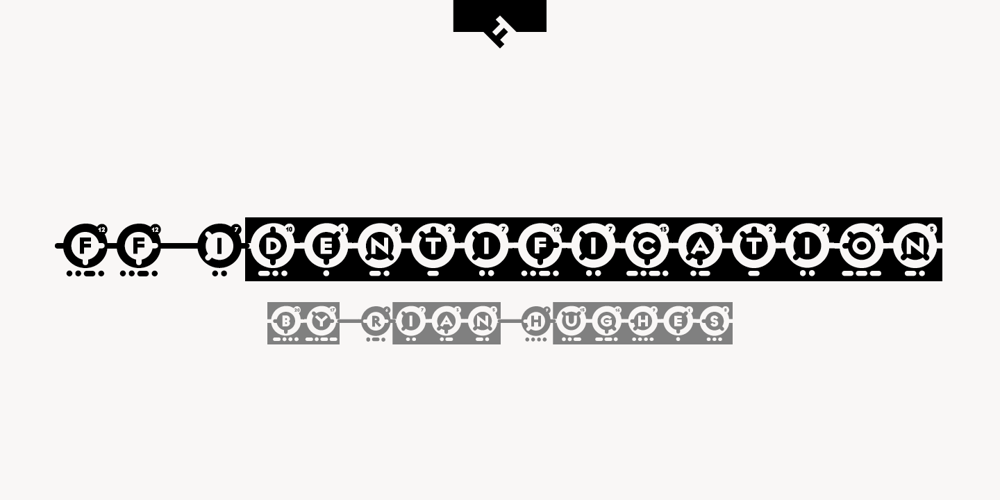
FF Identification
FF Identification font
FF Identification Font Family was designed by Rian Hughes and published by FontFont. FF Identification contains 5 styles and family package options. British type designer Rian Hughes created this display FontFont in 1993. The family has 5 weights, and is ideally suited for music and nightlife. It comes with tabular lining and proportional lining figures.